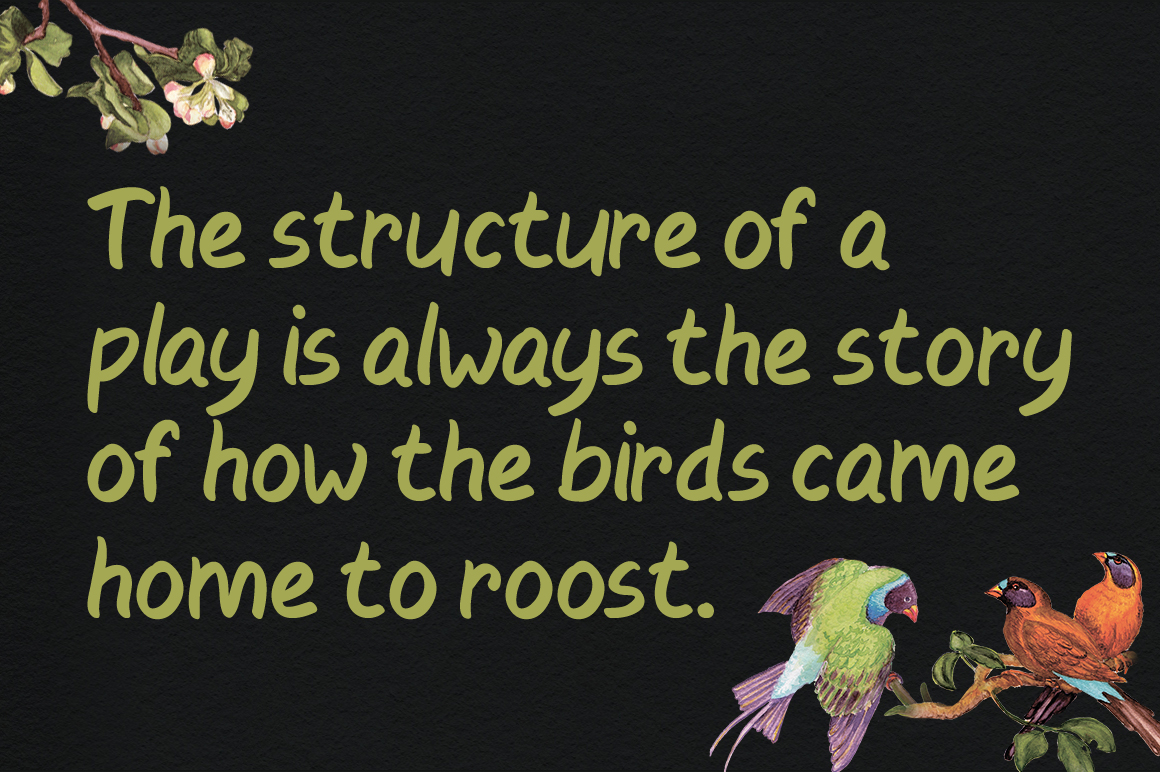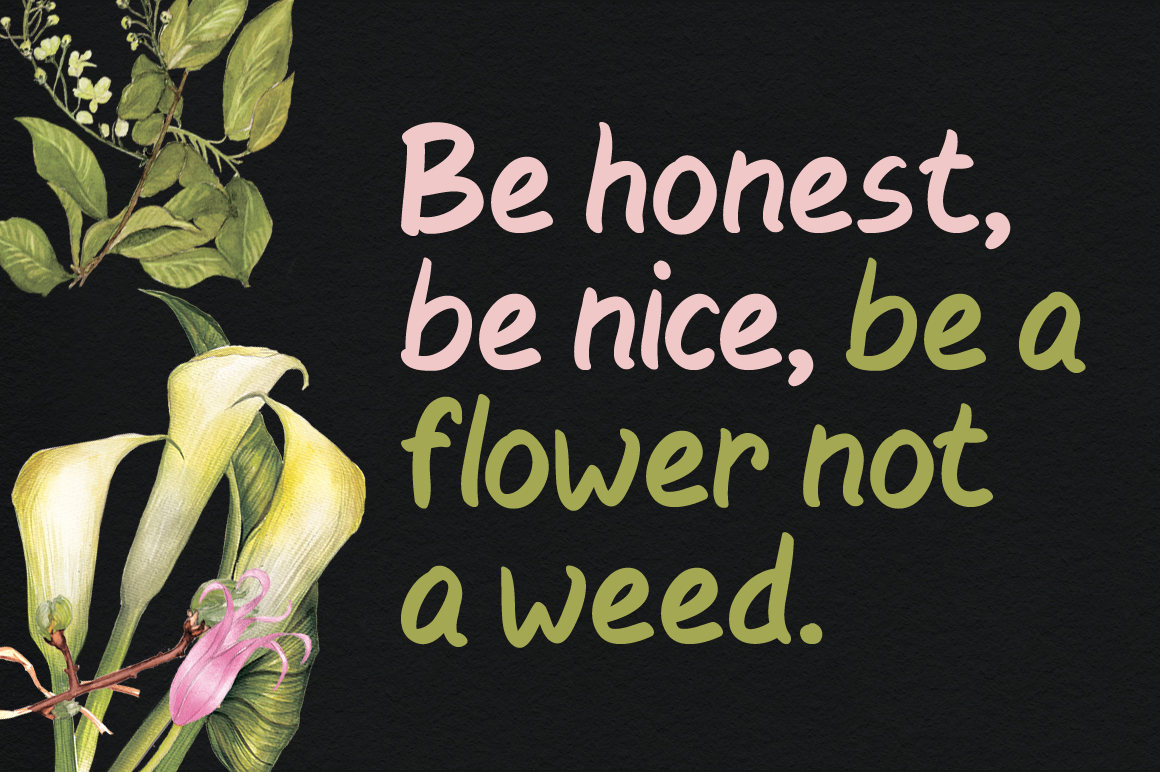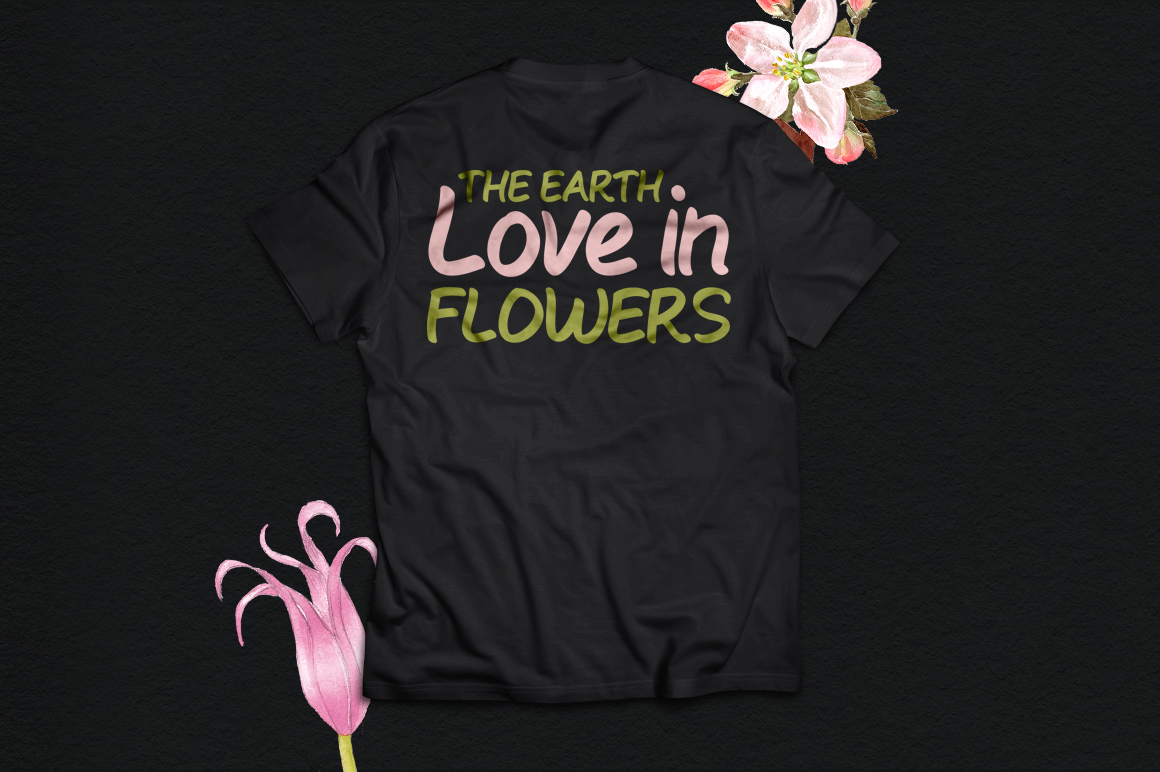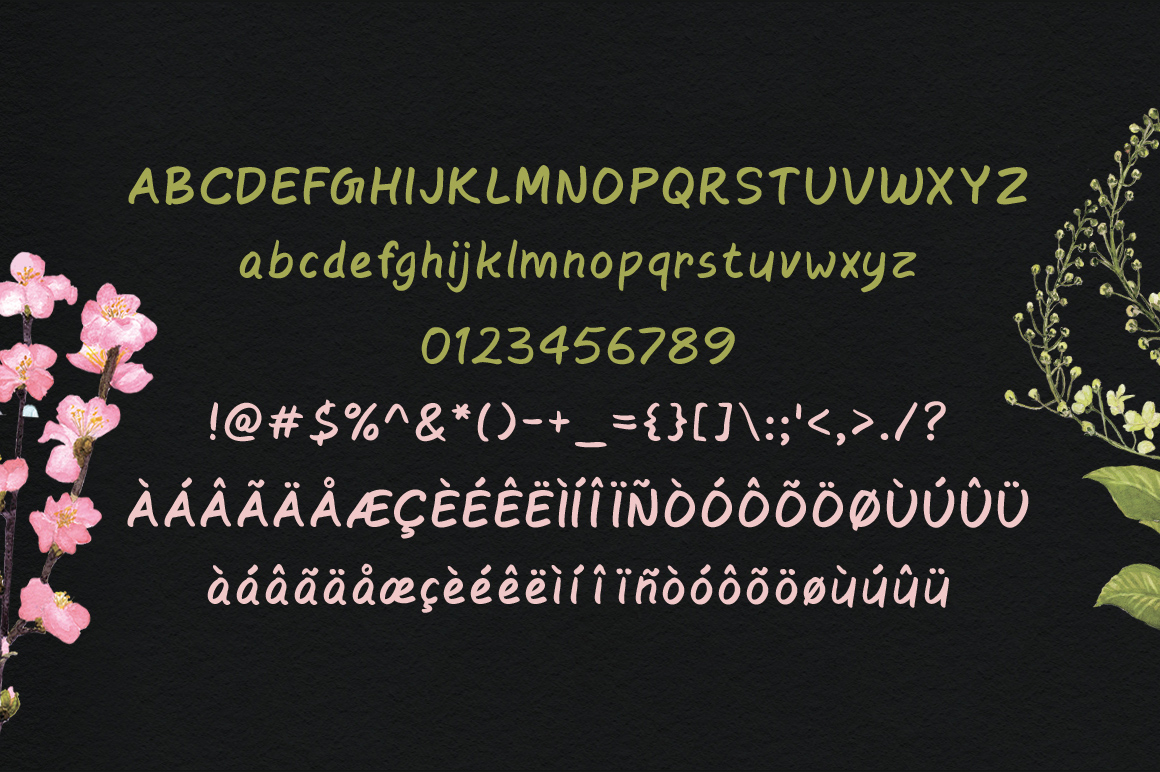
Discover the Charm of Adriana Madeline Font: A Friendly and Beautiful Handwritten Script
In the world of typography, few fonts manage to capture the essence of friendliness and beauty as effortlessly as Adriana Madeline. This playful handwritten font, with its smooth exterior, has been gaining popularity among designers and crafters alike for its universal appeal and versatility. Whether you’re looking for a display font to make a statement or a body text font to add a personal touch to your content, Adriana Madeline is an excellent choice.
The Making of Adriana Madeline: A Handcrafted Script Font
Adriana Madeline is a handcrafted script font, which means that every letter, every curve, and every stroke has been carefully designed by hand. This level of craftsmanship gives the font a unique and personal feel that’s hard to find in digital typography. The font’s creator aimed to produce a script that would exude warmth, approachability, and a sense of elegance, making it suitable for a wide range of applications.
Key Features of Adriana Madeline Font
- Playful yet Smooth: Adriana Madeline strikes the perfect balance between playfulness and smoothness. Its handwritten nature gives it a lively feel, while its smooth exterior ensures that the text remains clear and readable.
- Universal Appeal: One of the standout features of Adriana Madeline is its universal appeal. The font manages to be both friendly and sophisticated, making it suitable for various design projects, from children’s books to high-end branding.
- Versatility: Adriana Madeline can be used in multiple contexts, including as a display font for headings, titles, and pull quotes, or as a body text font for longer content. Its legibility and aesthetic appeal make it an excellent choice for digital and print materials.
- Handcrafted Quality: The handcrafted nature of Adriana Madeline means that it brings a level of authenticity and character to your designs that’s hard to replicate with more uniform fonts.
Uses of Adriana Madeline Font
The versatility of Adriana Madeline makes it suitable for a variety of design projects. Here are some of the most popular uses:
- Branding and Logotypes: The unique and friendly feel of Adriana Madeline makes it an excellent choice for branding and logotypes, especially for businesses that want to convey a sense of approachability and warmth.
- Digital and Print Publications: Whether you’re designing a magazine, a children’s book, or a blog, Adriana Madeline can add a touch of personality to your content.
- Social Media Graphics: In the world of social media, standing out is crucial. Adriana Madeline can help you create eye-catching graphics, quotes, and posts that engage your audience.
- Invitations and Stationery: For crafters and stationery designers, Adriana Madeline offers a beautiful way to create personalized invitations, greeting cards, and other paper goods.
Tips for Using Adriana Madeline Effectively
To make the most of Adriana Madeline, consider the following tips:
- Mix and Match: Don’t be afraid to experiment by mixing Adriana Madeline with other fonts. Its friendly nature makes it a great companion to a wide range of typography.
- Adjust the Size: While Adriana Madeline is legible at various sizes, adjusting the font size can help you emphasize certain parts of your text or create visual hierarchy.
- Play with Colors: The beauty of digital design is the ability to easily change colors. Experiment with different colors to see how Adriana Madeline looks in various contexts.
| Author | No Gravity Type |
Adriana Madeline Font is a beautiful, friendly, and versatile handwritten script font that can elevate your design projects. Its smooth exterior and playful nature make it universally appealing, while its handcrafted quality gives it a unique character. Whether you’re a designer looking for a font that can add personality to your branding and publications or a crafter seeking a beautiful script for your stationery and invitations, Adriana Madeline is an excellent choice. With its wide range of applications and ease of use, it’s no wonder that Adriana Madeline has become a favorite among designers and crafters alike.